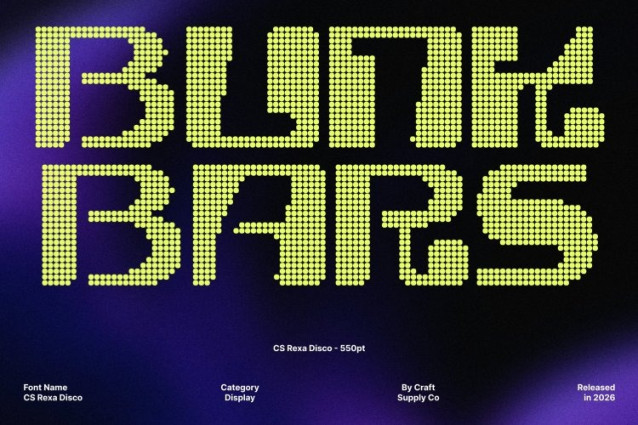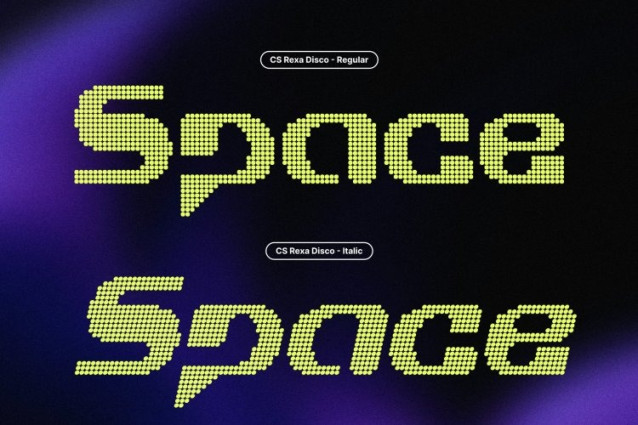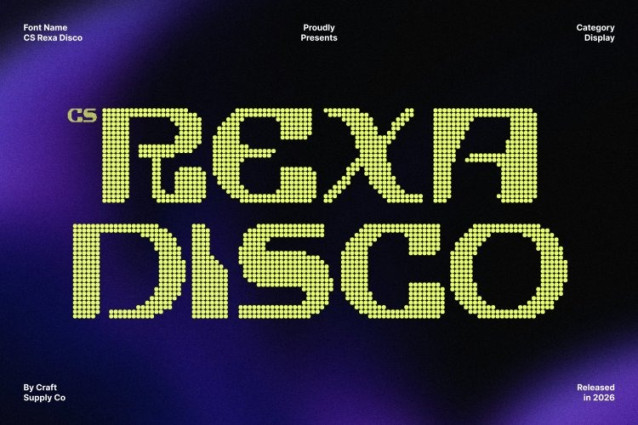
CS Rexa Disco Font
CS Rexa Disco Font – This is a futuristic display font that blends Y2K-inspired design with a vibrant disco-style dotted texture. Its sleek structure and rounded details create a retro-futuristic aesthetic, while the dotted surface introduces a lively sparkle that adds rhythm and visual excitement to every letter.
Rounded Geometry with Tech-Inspired Character
The font’s slightly rounded lines soften its geometric foundation, creating a balanced harmony between technological precision and smooth visual flow. The disco-inspired dotted texture enhances these shapes, giving the letterforms extra depth and personality while maintaining their modern clarity.
Y2K Nostalgia with Modern Digital Energy
This font channels the bold optimism of Y2K design while staying relevant for contemporary creative work. The combination of retro-futuristic curves and textured sparkle creates a dynamic style that feels both nostalgic and forward-looking.
Perfect for Games, Music, and Digital Media
This font thrives in game visuals, music branding, posters, digital interfaces, and futuristic design themes. Its bold forms ensure strong readability, while the shimmering dotted effect adds a distinctive visual identity that stands out in modern digital culture.